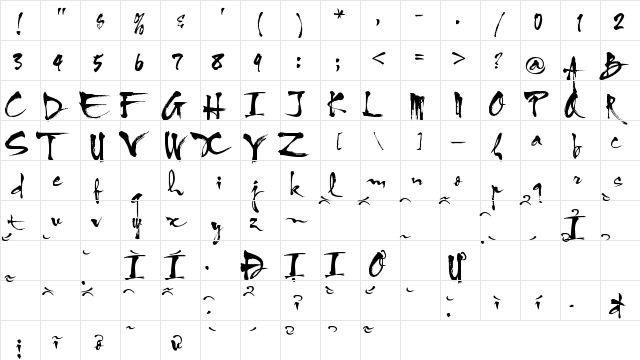
VNIHLThuphap Regular
Design Context for VNIHLThuphap Typeface
VNIHLThuphap is a composed and adaptable typeface that performs quietly and consistently across a wide range of design contexts.